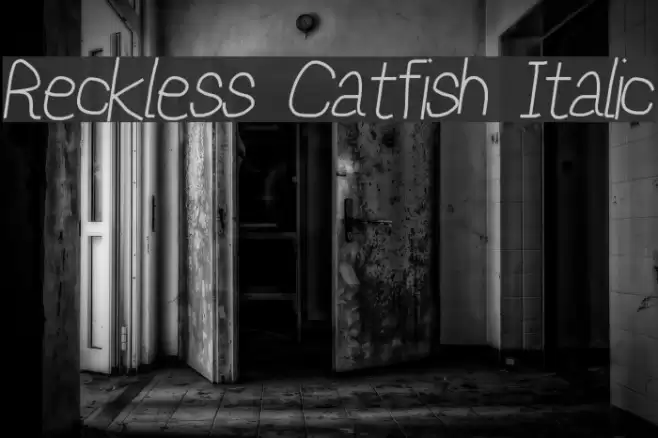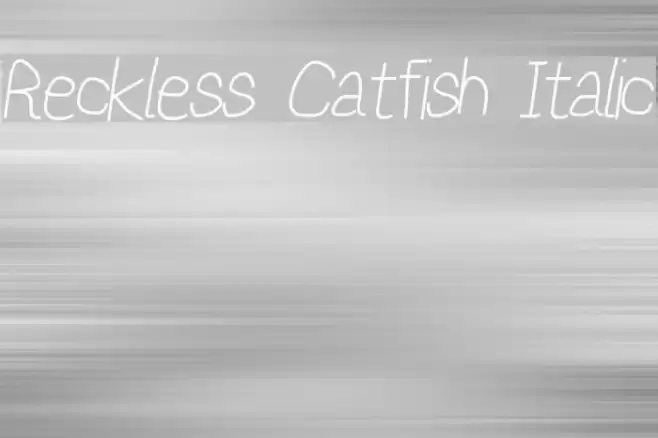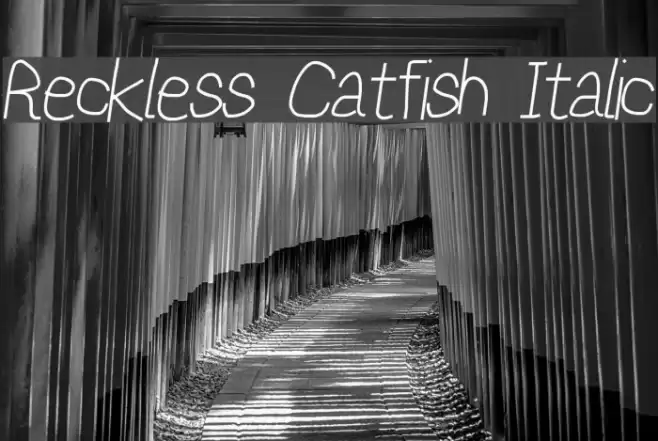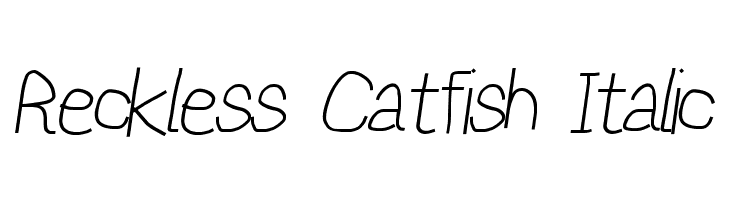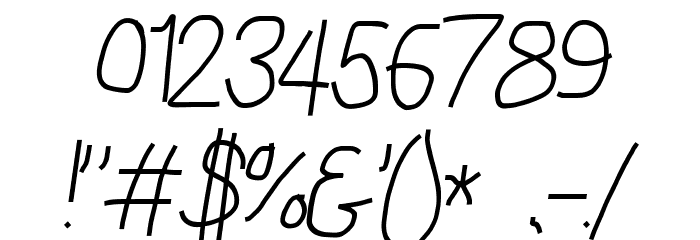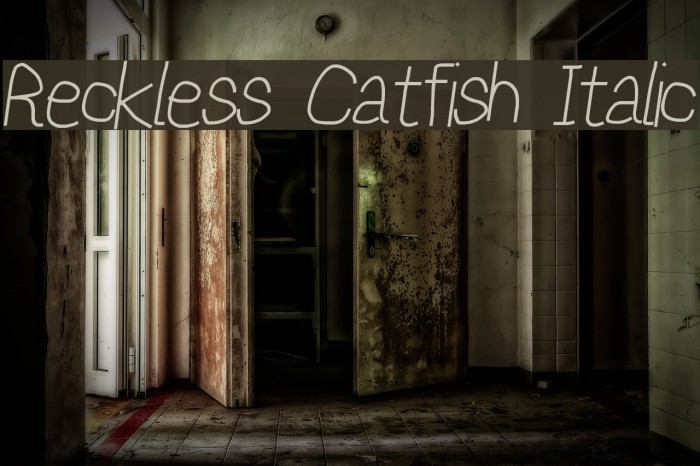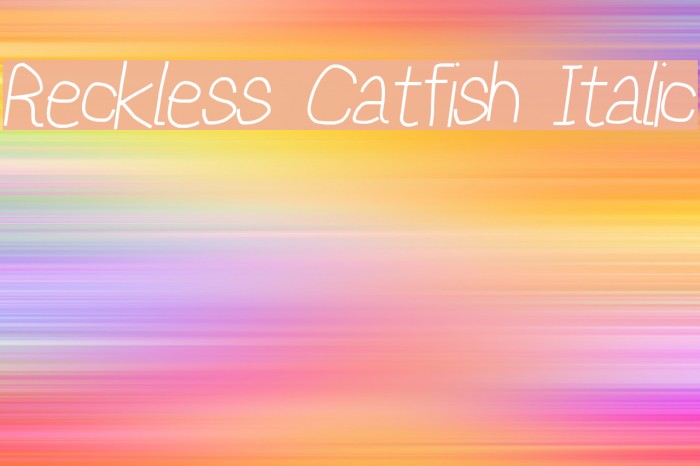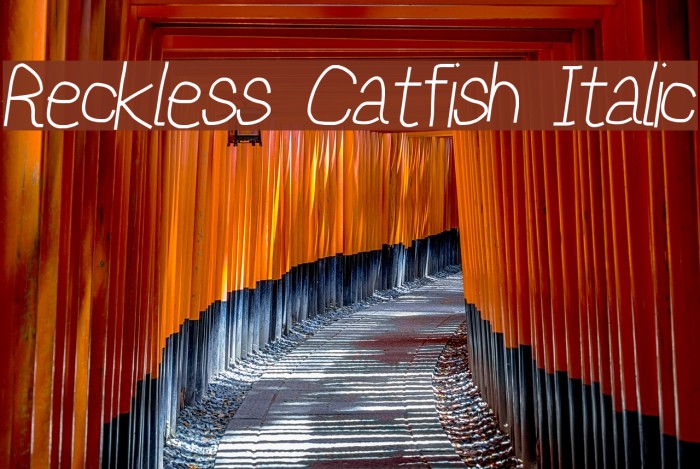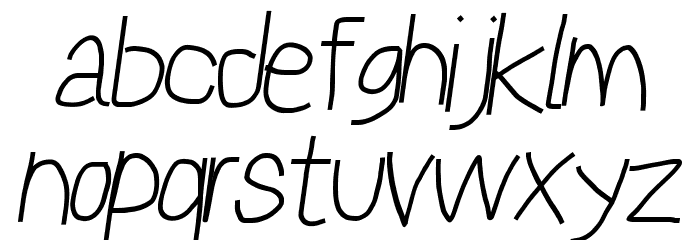
Reckless Catfish Italic Font
Reckless Catfish Italic Description
This font features a playful and casual handwritten style with a distinct italic slant, giving it a dynamic and lively appearance. The characters are slightly elongated with a consistent stroke width, creating a sense of movement and energy. The uppercase letters maintain a uniform height, while the lowercase letters have a slight variance, adding to the informal and approachable feel. The numerals and special characters are designed to match the overall aesthetic, ensuring cohesion across all elements. This font's unique personality makes it suitable for projects that require a touch of whimsy and creativity.
A playful, italic handwritten font with a dynamic and lively style from Uncategorized fonts.
- Proposed Projects: Ideal for greeting cards, children's books, playful branding, and creative social media graphics.
- Overall Style: Casual, Playful
- Use Case: Headlines, Informal text, Creative projects